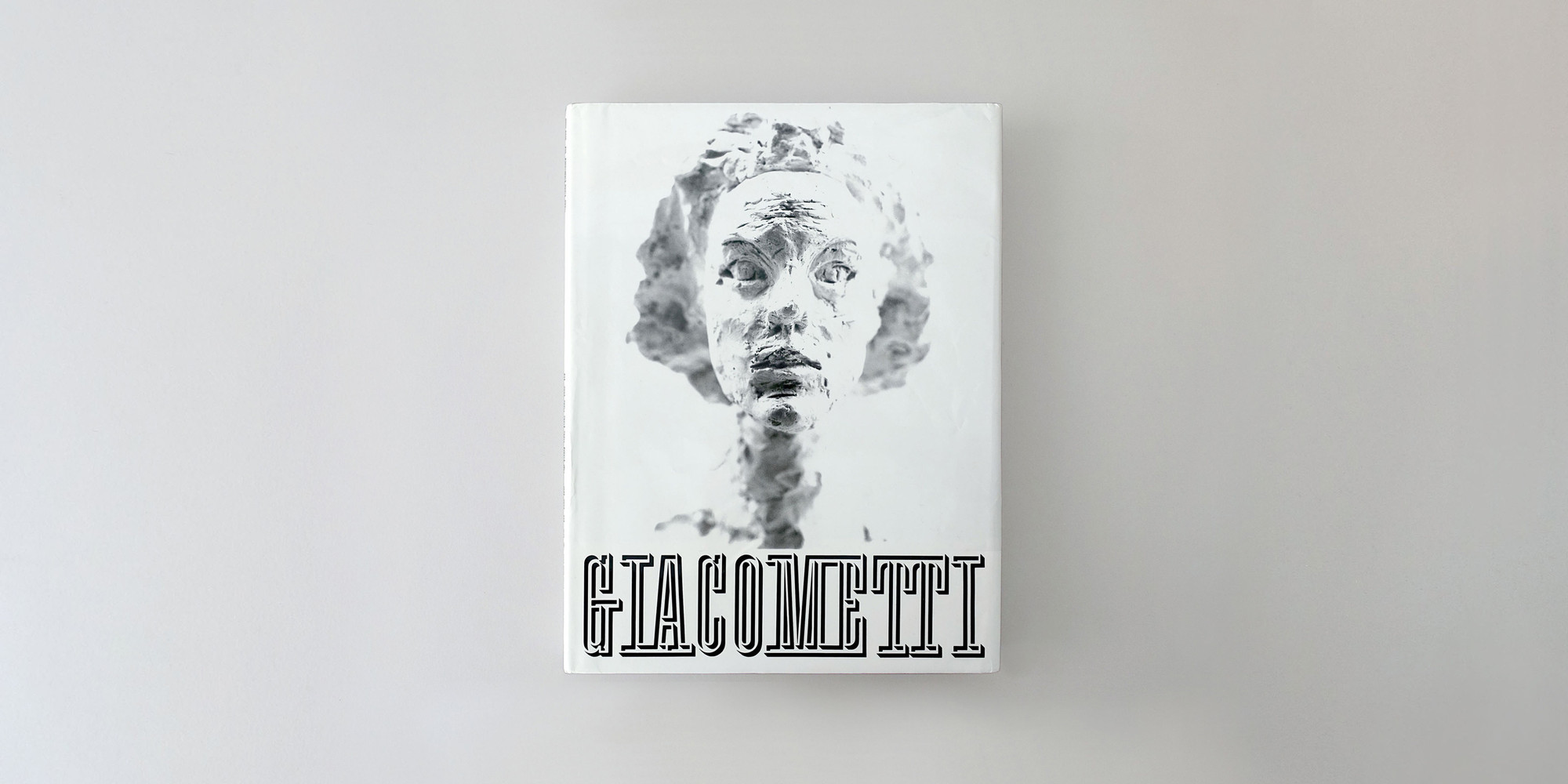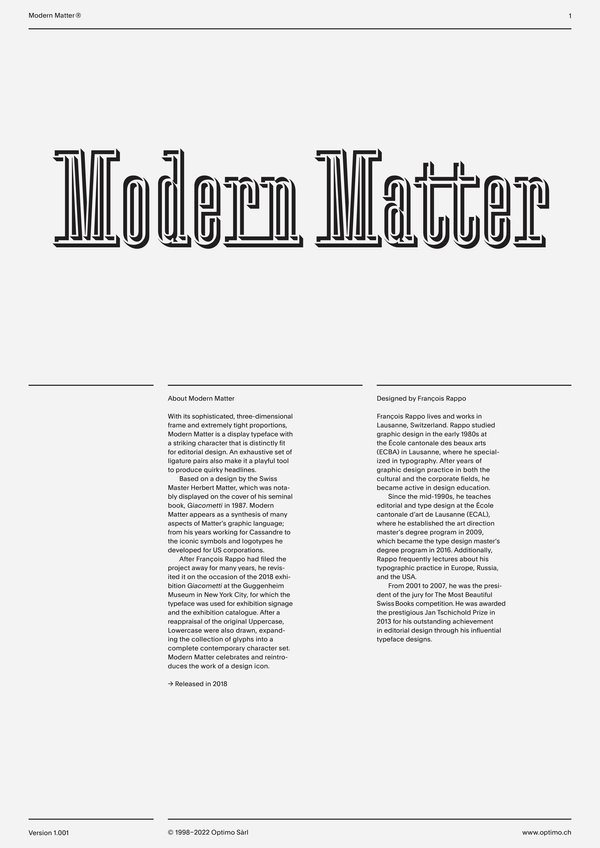
Modern Matter
Case Sensitive Forms
This function formats the text in uppercase and adjusts spacing between all capital letters. It also applies the ‘Case Sensitive Forms’ feature which replaces certain characters with alternates that are better suited for all capital text, especially related to punctuation.
Contextual Alternates
This feature adapts the position of a glyph after its surrounding context. For instance, a dash placed between two uppercase letters or numbers will be replaced by an uppercase version of the dash, slightly higher. This feature is usually active by default in Adobe applications.
Alternate C E F G L R S T a c f s Æ
Stylistic Set 1 [ss01]
This feature replaces glyph(s) with stylistic alternate(s).
Fractions
With this feature, any numbers separated by a slash will automatically turn into a fraction. To fit in fraction configuration, numerals have been designed smaller and their weights have been adjusted to suit the typeface.
Lowercase math symbols
Stylistic Set 6 [ss06]
This feature activates alternate lowercase positioning of mathematical symbols.
This feature replaces any letter following a numeral with its matching superior letters. French language uses the ordinal indicators such as ‘er’ for 1er premier, while Spanish, Portuguese and Italian require the feminine and masculine ordinals ‘a,’ ‘o’ for 1º, 1ª. Ordinals are designed to match the weight of the typeface.
Slashed Zero
Slashed Zero [zero]
Originally created to avoid the confusion between the ‘0’ and the ‘O’, this feature substitutes all zeros in a selected text by a slashed form of the zero.
Multiply sign
Stylistic Set 20 [ss20]
This feature substitutes the letter “x” into the multiplication sign.
Numerators [numr]
This feature substitutes glyphs with their matching smaller alternates. The numerators are the same glyphs that are used to create fractions, their vertical position remains within the capital letters height. These glyphs are reduced in size and designed slightly heavier to keep them consistent with the rest of the font.
This feature substitutes glyphs with their matching smaller alternates and low position glyphs. The denominators are the same glyphs that are used to create fractions, their vertical position remains within the base line. These glyphs are reduced in size and designed slightly heavier to keep them consistent with the rest of the font.
Superscript/Superiors
This feature substitutes glyphs with their matching smaller alternates which are set slightly above the height of the capital letters. These glyphs are reduced in size and designed slightly heavier to keep them consistent with the rest of the font.
Subscript/Inferiors
Subscript / Inferiors [subs]
This feature substitutes glyphs with their matching smaller alternates which are set slightly below the baseline. These glyphs are reduced in size and designed slightly heavier to keep them consistent with the rest of the font.
Standard Ligatures
Standard Ligatures [liga]
Standard ligatures replaces a sequence of characters with a single ligature glyph, they are designed to improve kerning and readability of certain letter pairs.
Extra Ligatures
Extra Ligatures [liga]
Standard ligatures replaces a sequence of characters with a single ligature glyph, they are designed to improve kerning and readability of certain letter pairs. Modern Matter is provided with more than 600 ligatures, which is more than the usual standard ligatures.
After François Rappo had filed the project away for many years, he revisited it on the occasion of the 2018 exhibition Giacometti at the Guggenheim Museum in New York City, for which the typeface was used for exhibition signage and the exhibition catalogue. After a reappraisal of the original uppercases, lowercases were also drawn, expanding the collection of glyphs into a complete contemporary character set. Modern Matter celebrates and reintroduces the work of a design icon.